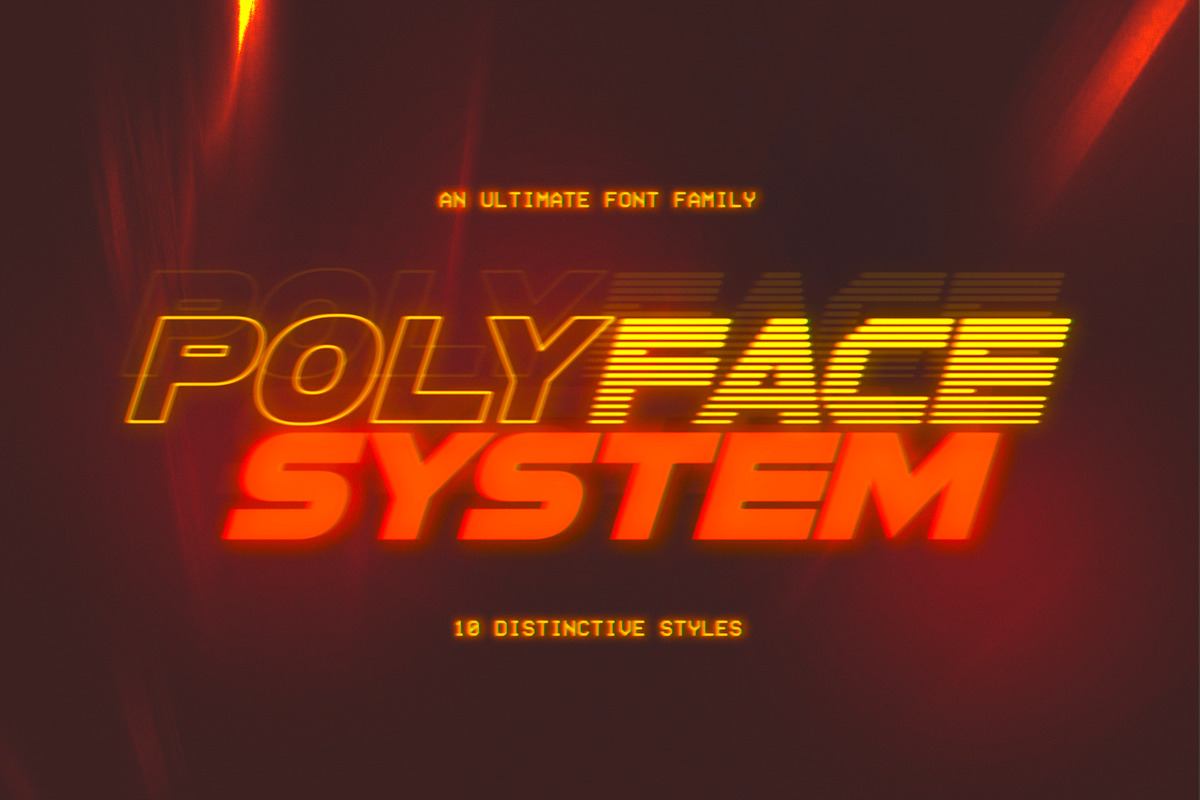
Polyface System Font Free Download
Polyface System Font Free Download is a modular, futuristic typeface designed with a geometric and system-inspired aesthetic. Featuring sharp angles, structured shapes, and tech-forward styling, Polyface is perfect for digital interfaces, sci-fi posters, gaming graphics, branding for tech companies, and any design that aims for a high-tech, modern look.
Engineered for visual impact and clean legibility, Polyface System Font Free Download brings a mechanical yet stylish edge to both print and digital projects. It’s ideal for headlines, UI design, logos, and creative layouts that demand a unique and structured visual tone.